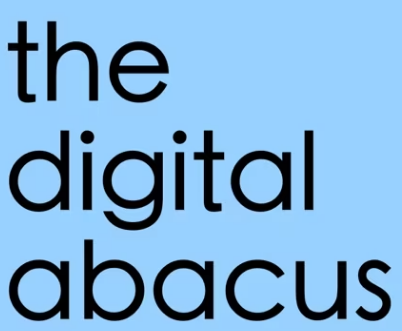
Looking for a geometric sans-serif (DigitalAbacus)
Hey, I recently came across this font online and I just can't find it.
It looks very similar to Century Gothic or Greycliff but there are some differences.